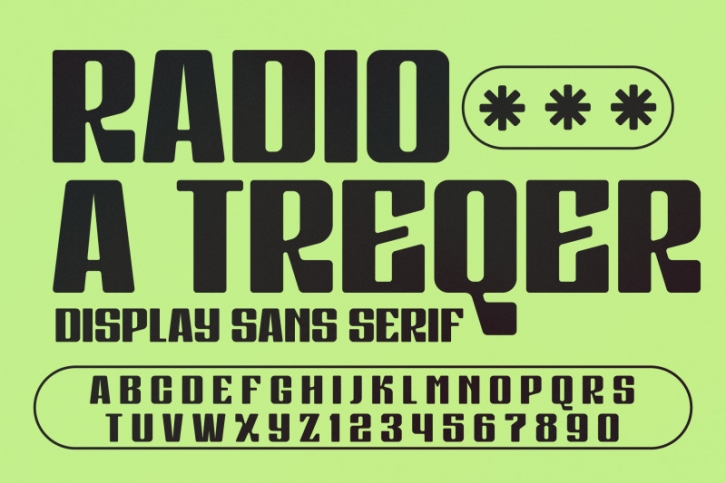
Proudly present RADIO A TREQER Typeface , created by Storytype,
A serif modern and classic typeface that has own unique style & modern look.
This typeface is perfect for an elegant & luxury logo, book or movie title design, fashion brand, magazine, clothes, lettering, quotes, and so much more.